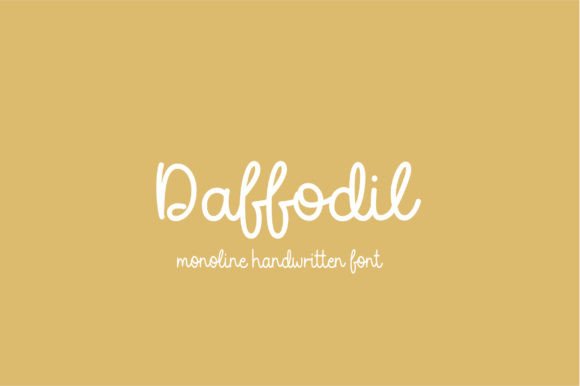
Are you searching for the perfect font to elevate your Easter project? Look no further than Daffodil Font! Created by Sunday Nomad, this script font is the ideal choice for all your Easter-themed designs.
Daffodil is a smooth and cute monoline handwritten font that exudes warmth and playfulness. Its unique style will make your designs stand out and leave a lasting impression. Whether you are creating invitations, signage, social media graphics, apparel designs, packaging, or stickers, Daffodil will take your project to the next level.
With Daffodil Font, you can effortlessly capture the essence of Easter with its charming and whimsical vibe. The font's versatility means that it can be used for a wide range of projects, from traditional to modern, and everything in between. It is the perfect choice for anyone looking to add a touch of personality and character to their Easter designs.